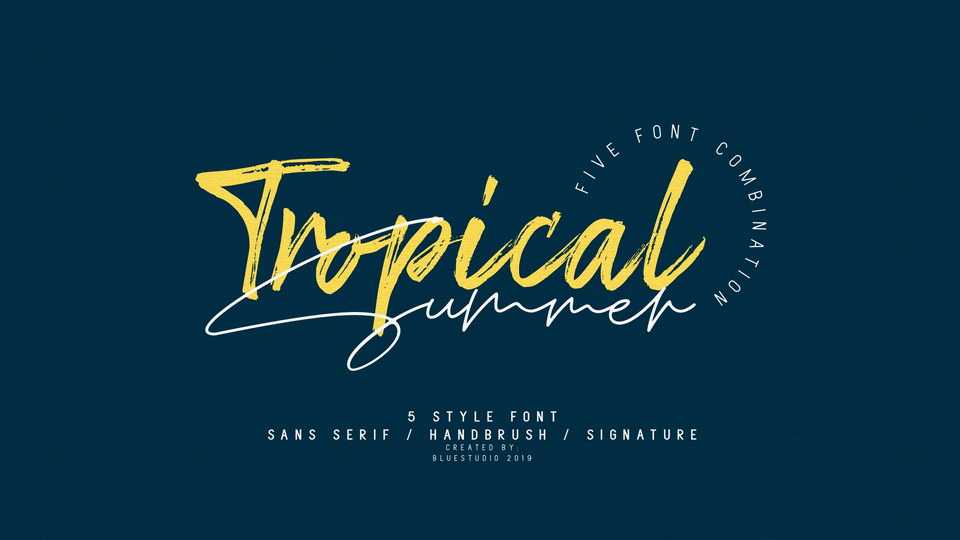
Download Tropical Summer fonts, a stylish signature script and rough brush typeface. Tropical summer font duo is perfect for branding, merchandise, social media and more.